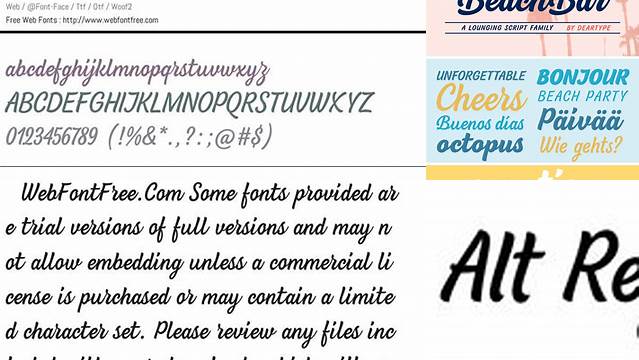
Free Beachbar Regular Font Download: A Comprehensive Guide
Hey guys! Are you on the hunt for a font that screams beachy, fun, and relaxed? Look no further! The Beachbar Regular font might just be what you need. This font, known for its casual and playful vibe, is perfect for a wide range of projects. Whether you're designing posters for a beach party, creating a logo for a seaside cafe, or simply want to add a touch of summer to your digital creations, understanding how to find and download the Beachbar Regular font for free is essential. In this guide, we'll walk you through everything you need to know to get your hands on this fantastic font, ensuring you can use it legally and effectively. So, let's dive in and explore the world of Beachbar Regular font!
The Beachbar Regular font is characterized by its laid-back, almost hand-drawn style. Imagine the kind of lettering you'd see on a quirky beachside sign or a surfboard – that's the essence of this font. Its slightly irregular lines and curves give it a unique, informal charm, making it stand out from more traditional, formal fonts. But what makes it so special? Well, for starters, it perfectly captures the spirit of summer and coastal living. The font evokes a sense of carefree days, sandy beaches, and the gentle sound of waves. This makes it an excellent choice for projects that aim to convey a sense of relaxation, fun, and authenticity. Think about how effective it would be for branding a beach resort, designing promotional materials for a surf school, or even creating personalized invitations for a beach wedding. The Beachbar Regular font’s versatility extends beyond just its aesthetic appeal. It’s also highly readable, ensuring that your message is not only stylish but also clear. The font’s distinctive style means it can make a big impact, even in small sizes, making it suitable for both headings and body text. Its playful character also allows it to pair well with a variety of other fonts, giving you the flexibility to create a cohesive and visually appealing design. Plus, the fact that many designers and creatives offer it for free (or at least offer a free version) makes it an accessible option for everyone, regardless of their budget. So, whether you’re a professional designer or a hobbyist, the Beachbar Regular font is a fantastic tool to add to your creative arsenal.
Choosing the right font is crucial in any design project, and the Beachbar Regular font offers a plethora of advantages that make it a standout choice. First and foremost, its unique aesthetic is a major draw. Unlike generic, overused fonts, Beachbar Regular has a distinct personality. Its hand-drawn feel gives it a warm, approachable quality that can instantly make your designs more inviting. This is particularly useful if you're aiming for a relaxed, casual vibe – think beach-themed events, summer promotions, or even personal projects like scrapbooking or crafting. Another key benefit of Beachbar Regular is its versatility. It's not just a one-trick pony; it can be effectively used in a wide range of applications. From eye-catching headlines and logos to body text and invitations, this font adapts beautifully. Its readability, even in smaller sizes, means that your message will always be clear, no matter where you use it. The font also pairs well with other styles, so you can mix and match it with more formal fonts for a balanced look, or use it alongside other playful fonts for a cohesive, fun design. Furthermore, the Beachbar Regular font is often available for free, making it an accessible option for designers and enthusiasts alike. In a world where premium fonts can cost a fortune, finding a high-quality free font is like striking gold. This means you can achieve a professional look without breaking the bank. But beyond the practical advantages, the Beachbar Regular font simply adds a touch of character to your work. It evokes a sense of nostalgia, freedom, and the laid-back spirit of summer. It's a font that can make people smile, which is a powerful tool in any design. Whether you're creating a poster, a website, or a social media graphic, the Beachbar Regular font can help you stand out from the crowd and leave a lasting impression.
Now that you've got the Beachbar Regular font installed and ready to roll, let's talk about how to use it effectively in your designs. This font has a lot of personality, so it's important to use it in a way that complements your overall aesthetic. One of the best tips is to consider your project’s mood. Beachbar Regular is inherently casual and playful, so it's perfect for projects that aim to convey a relaxed or fun vibe. Think beach parties, summer promotions, or even children’s books. However, it might not be the best choice for more formal or serious projects, like legal documents or corporate reports. Another key tip is to think about readability. While Beachbar Regular is generally quite legible, it's still a good idea to use it sparingly, especially in body text. Large blocks of text in this font might become tiring to read. Instead, try using it for headings, subheadings, or short bursts of text to add a touch of flair without sacrificing clarity. Pairing fonts is an art, and it's something to pay attention to when using Beachbar Regular. Because it's a distinctive font, it works best when paired with a simpler, more neutral font. Think along the lines of a clean sans-serif like Helvetica or Arial for body text, which will provide a nice contrast and keep your design balanced. You can also experiment with other handwritten or script fonts for a cohesive, informal look, but be careful not to overcrowd your design with too many quirky fonts. Spacing and sizing are also important considerations. Give your Beachbar Regular text some room to breathe by adjusting the letter spacing and line height. This will make it easier to read and prevent it from feeling cramped. As for sizing, experiment to find the sweet spot where the font is prominent enough to make an impact but not so large that it overwhelms the design. Finally, remember to have fun with it! Beachbar Regular is a font that’s meant to be enjoyed, so don’t be afraid to get creative and try new things. Use it in unexpected ways, play with colors and textures, and let your imagination run wild. With a little practice, you’ll be using the Beachbar Regular font like a pro in no time!